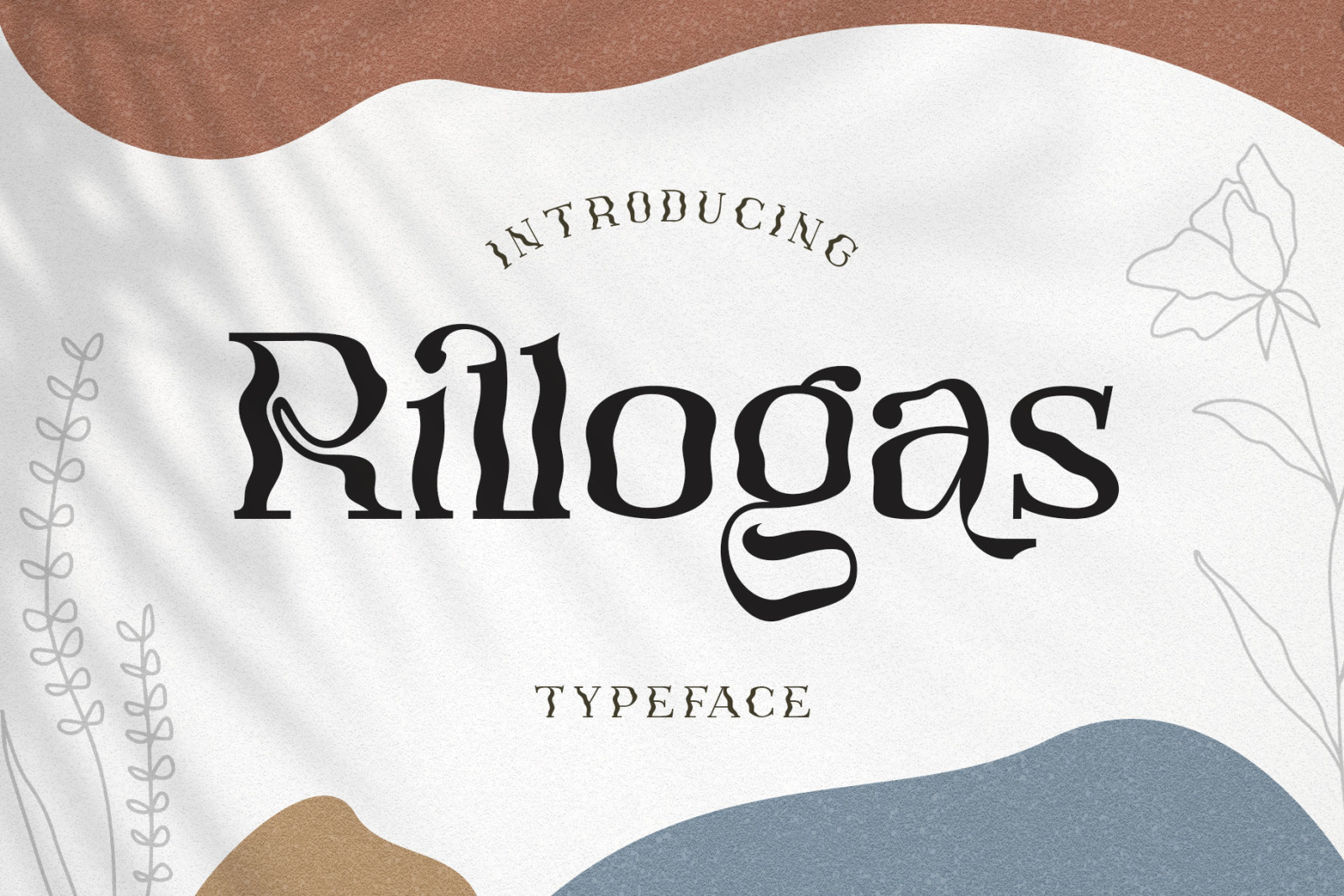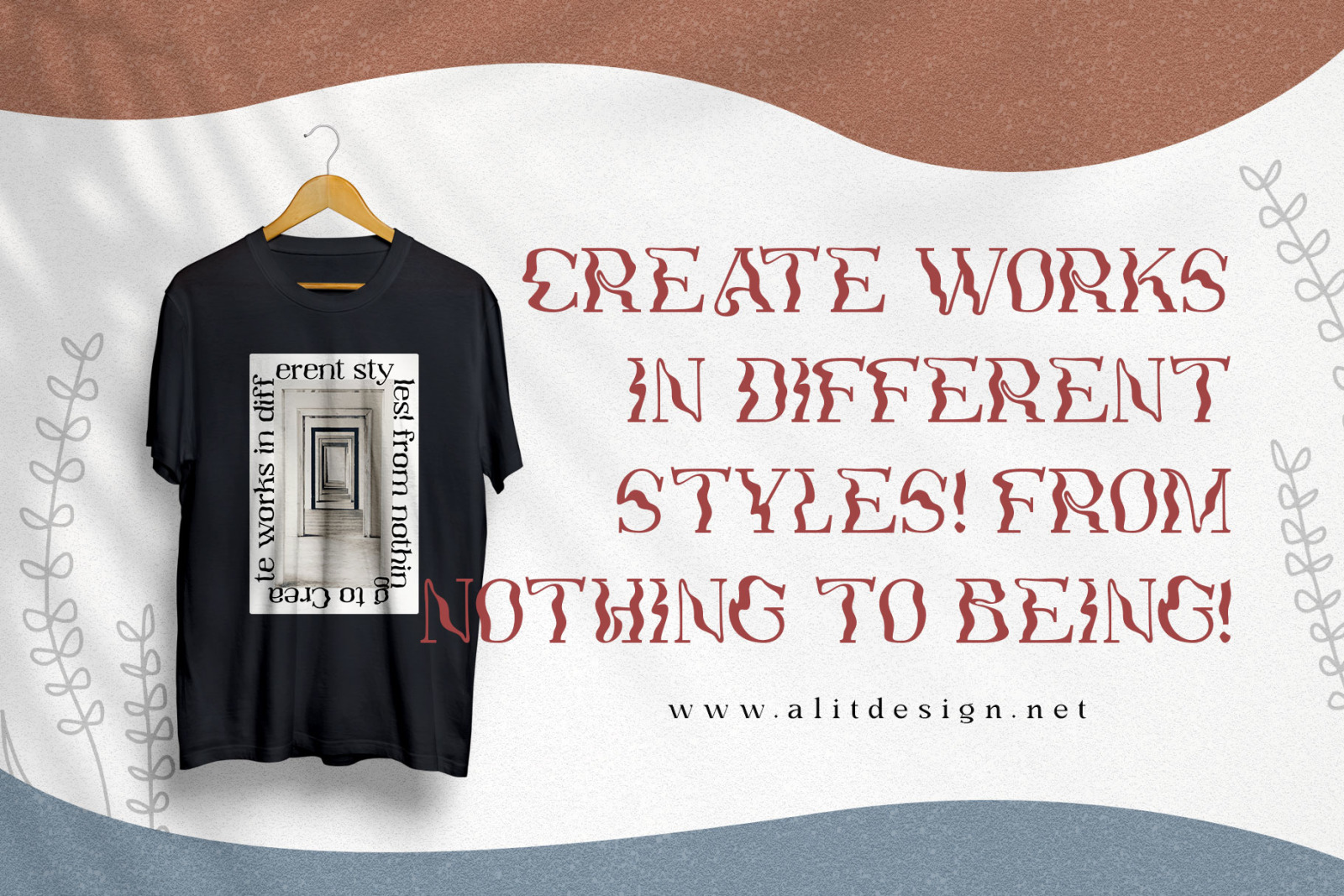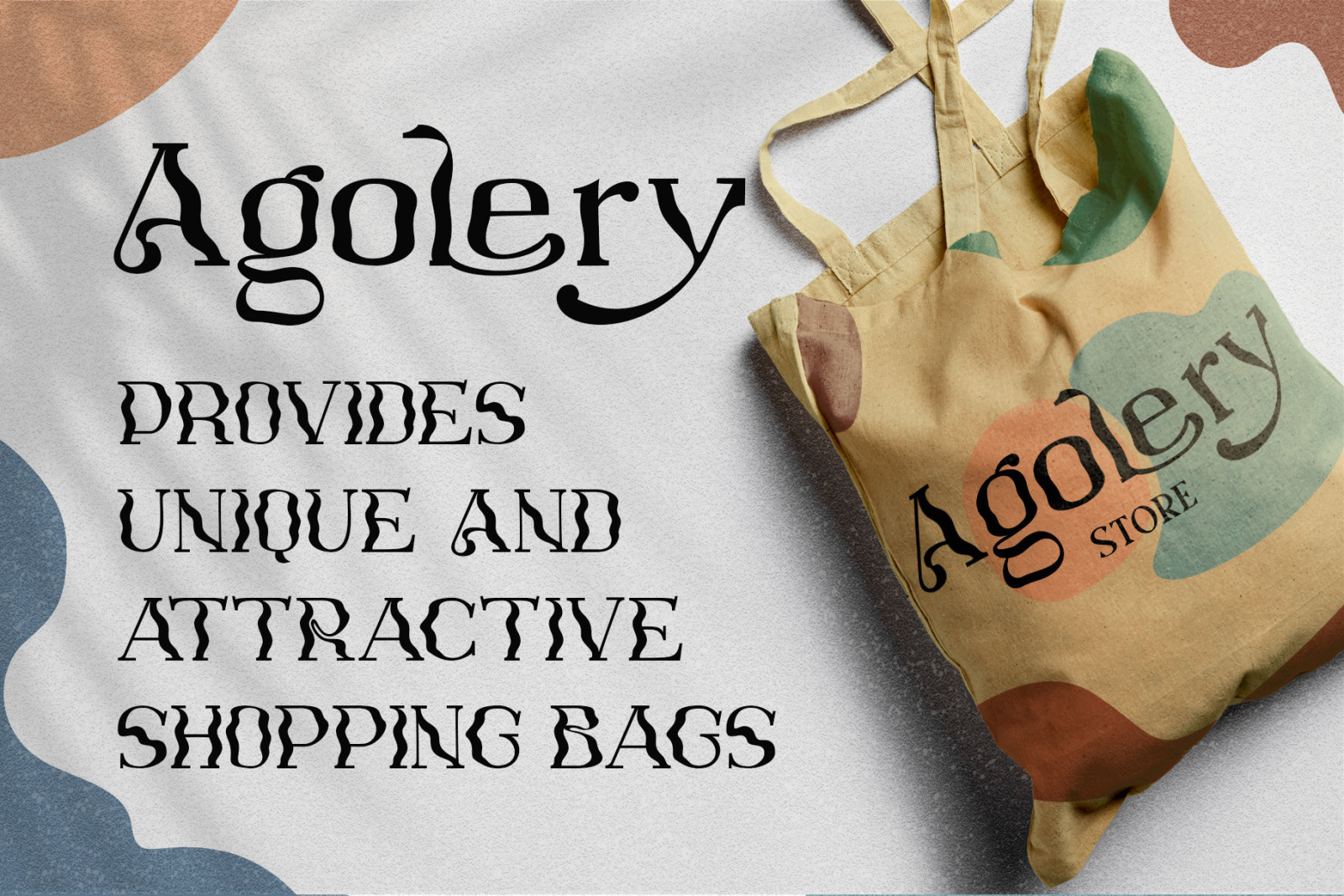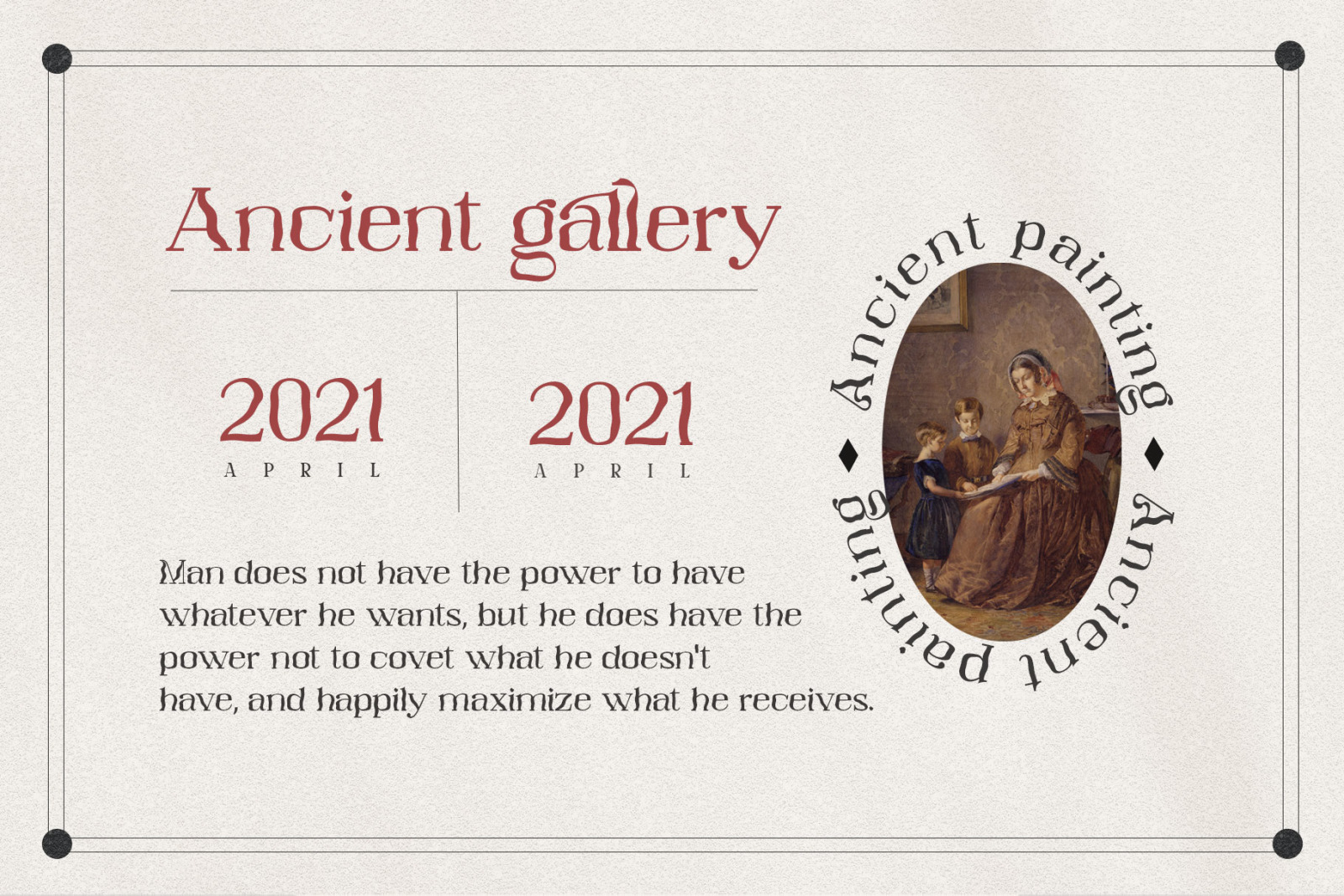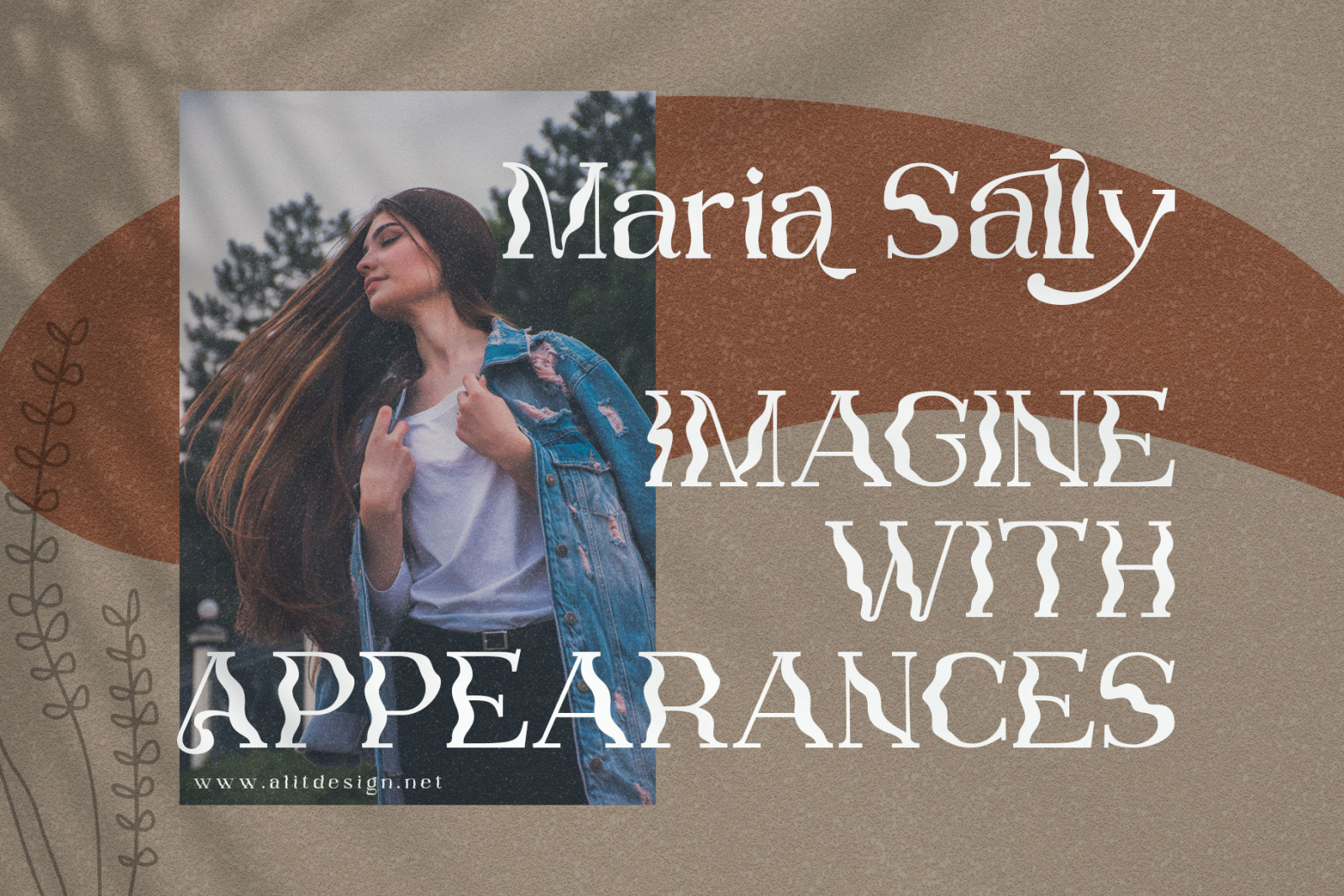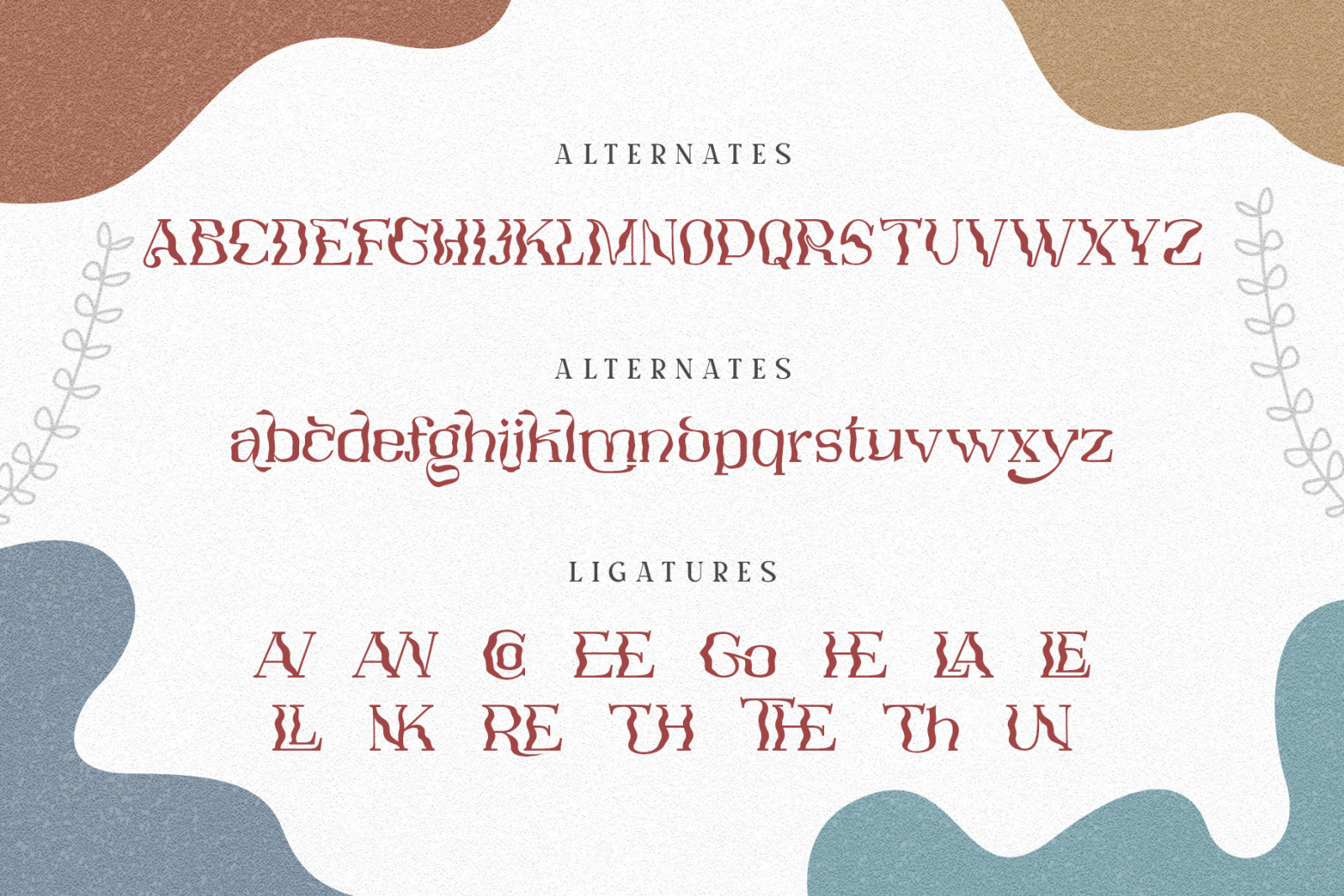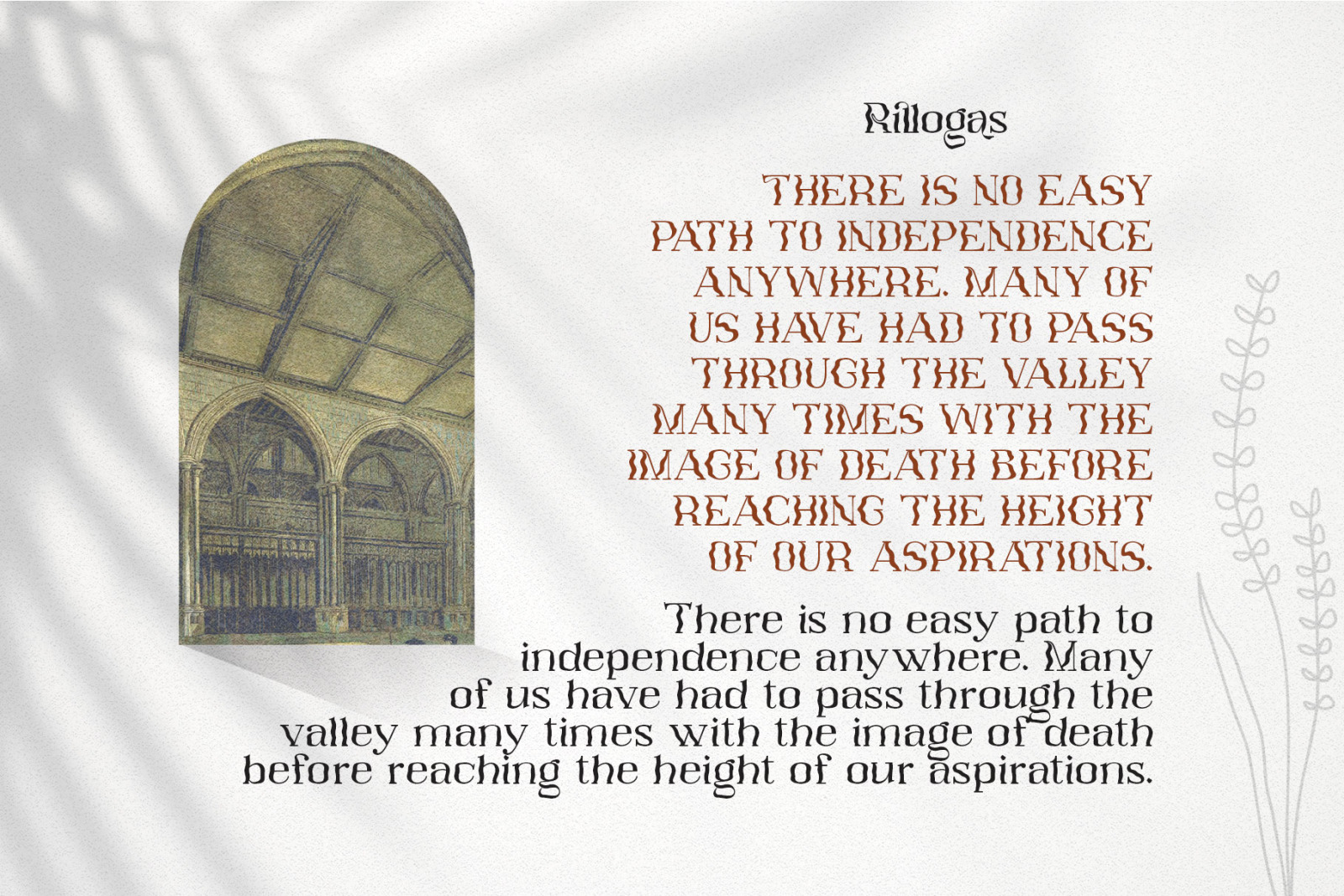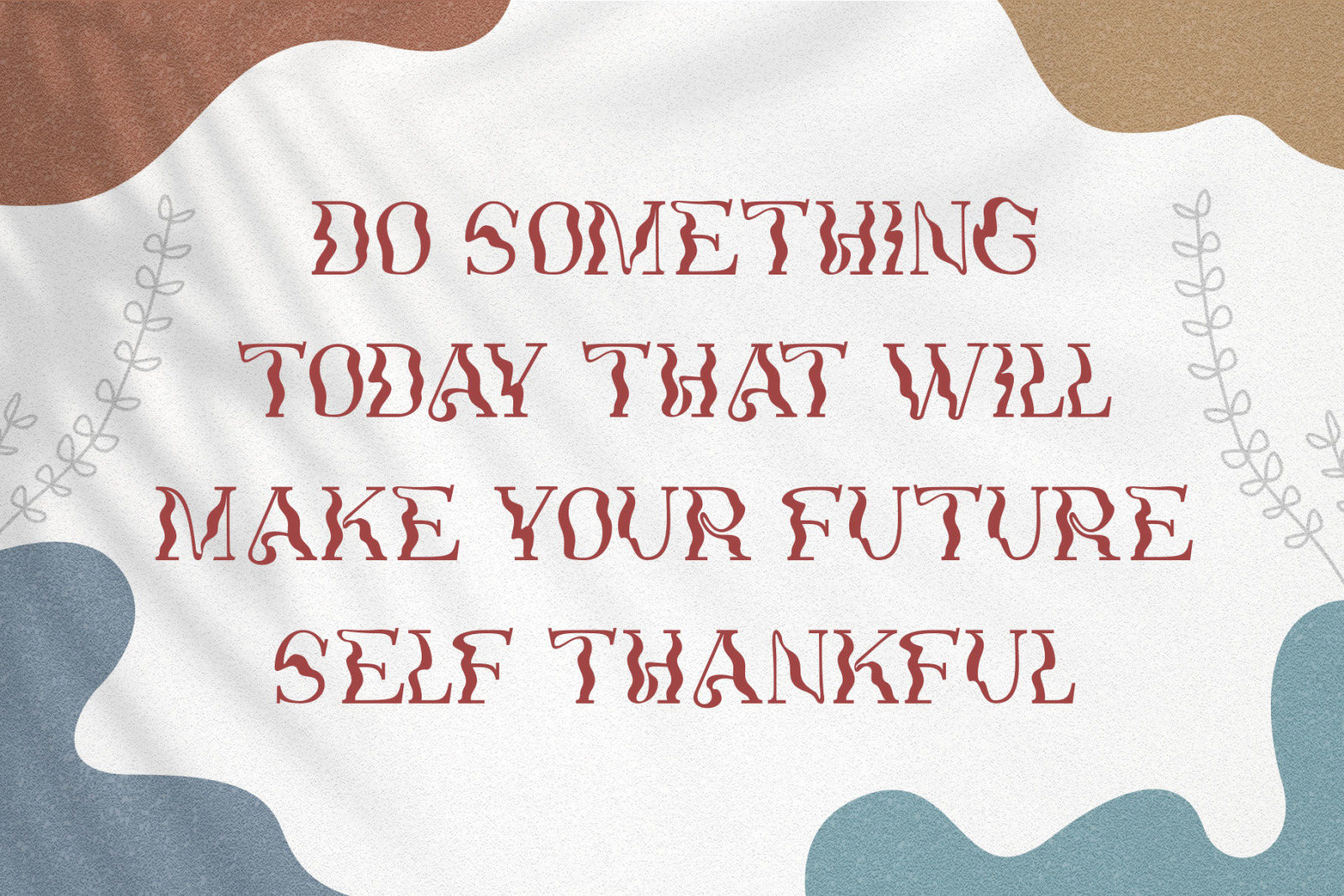
Rillogas Font
Rillogas Typeface
Modern Serif font with swash alternate and distortion style, created from the frequent use of typeface for wedding needs. This font has an elegant and from thin until demi bold family. It is perfect for designs with romantic themes such as wedding properties, Valentine cards, romantic quotes and others.
Stylistic Alternates
Ligatures